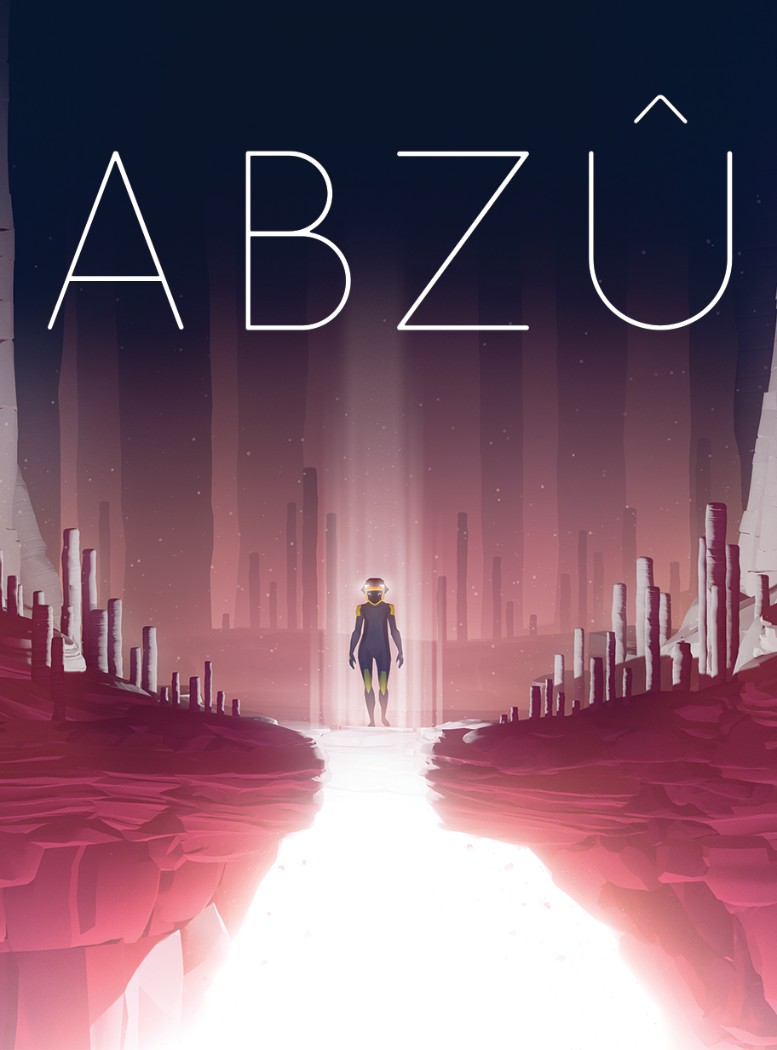
ABZÛ (video game) Font
Abzu's title font is most likely Quicksand Light. Quicksand designed by Andrew Paglinawan is a sans-serif font family that comes in Light, Book, Bold with obliques, and a dashed variant. You can download the font family in Font Used Section.